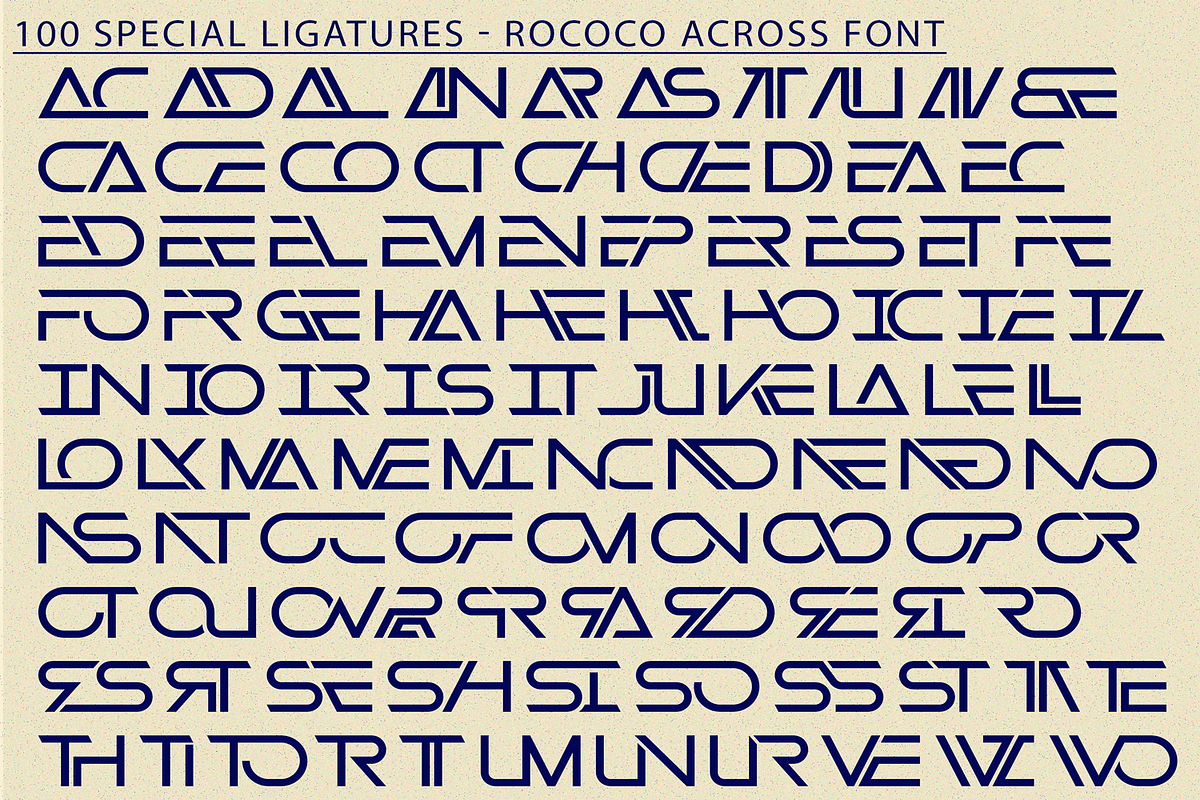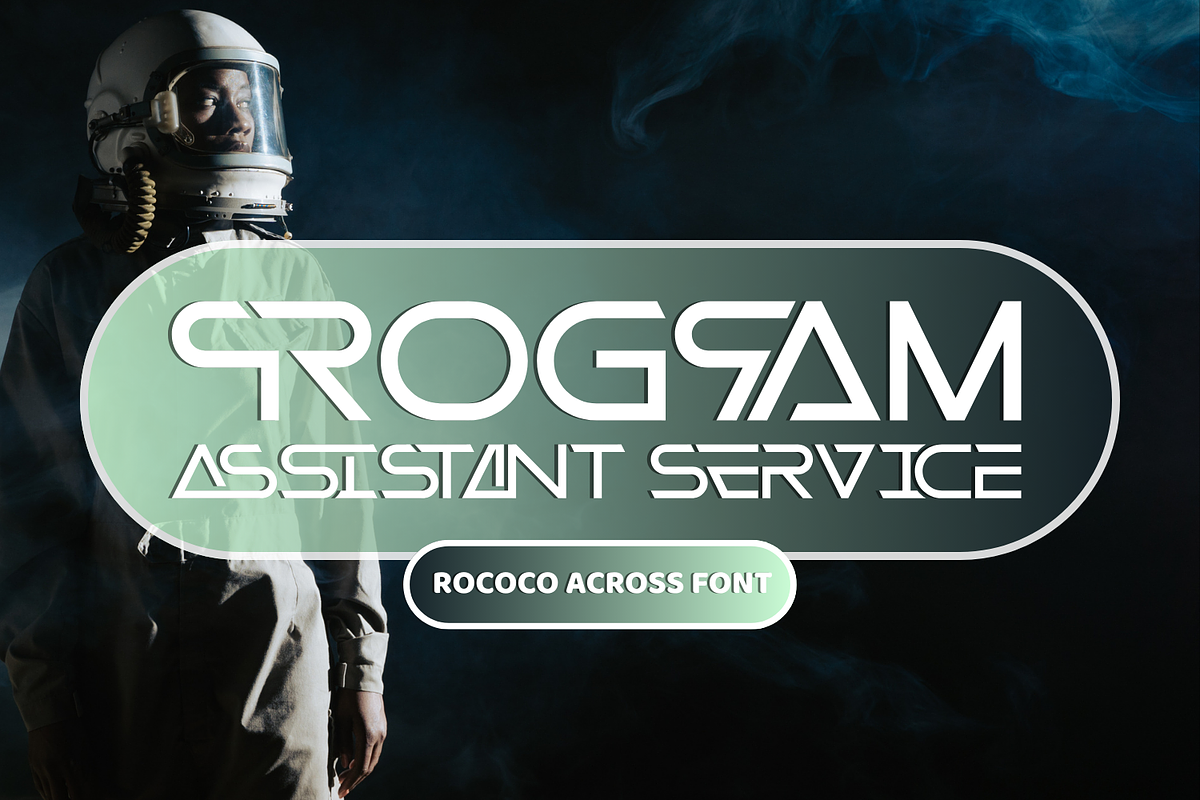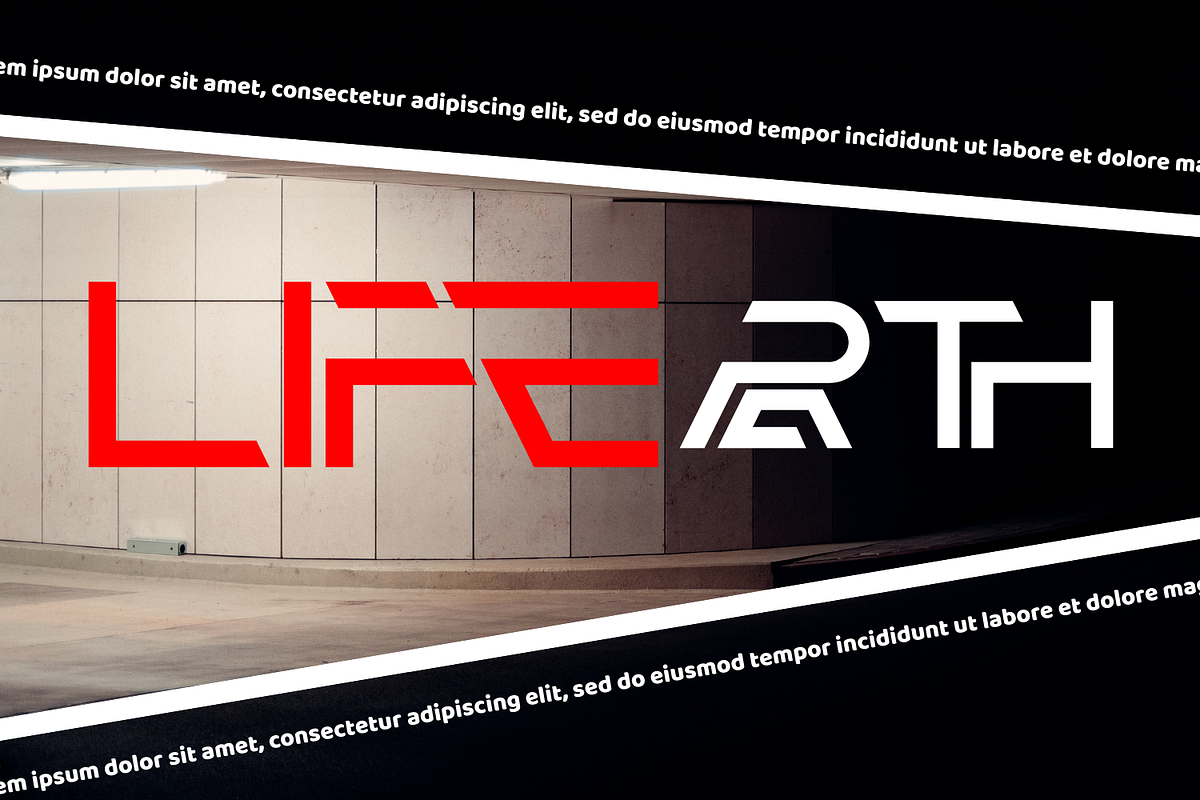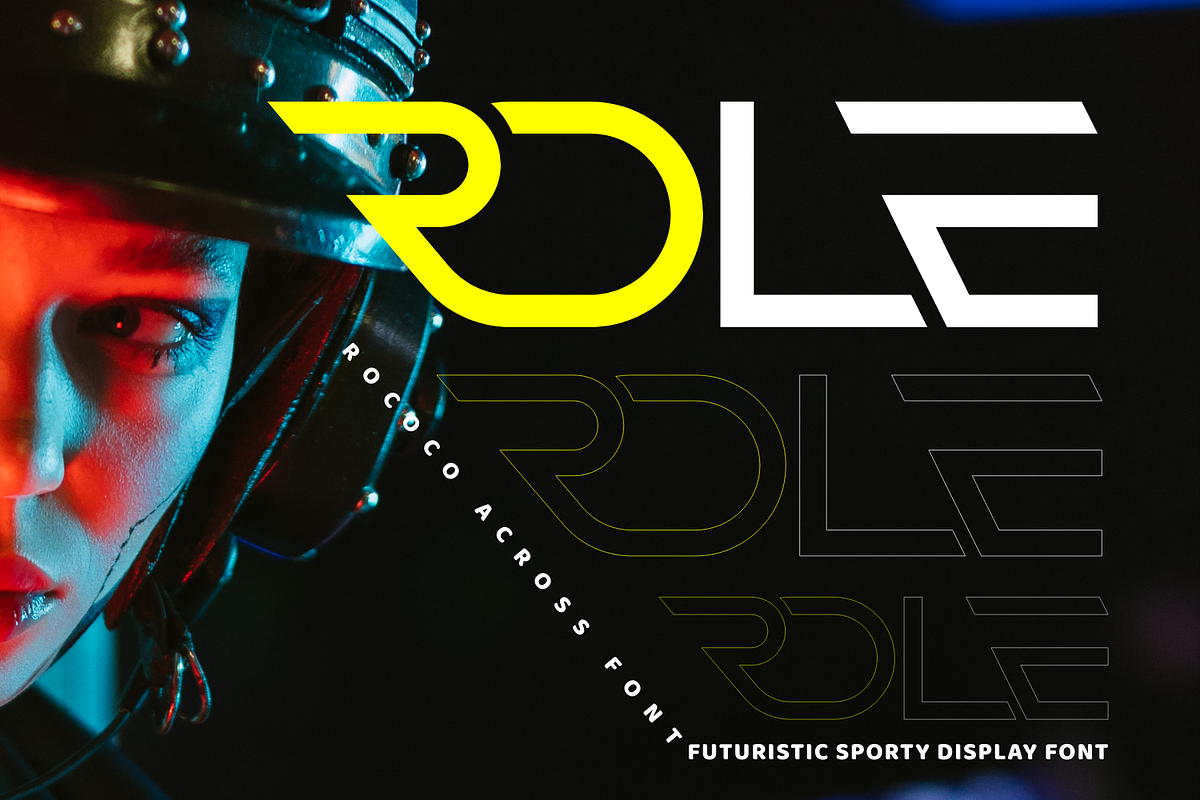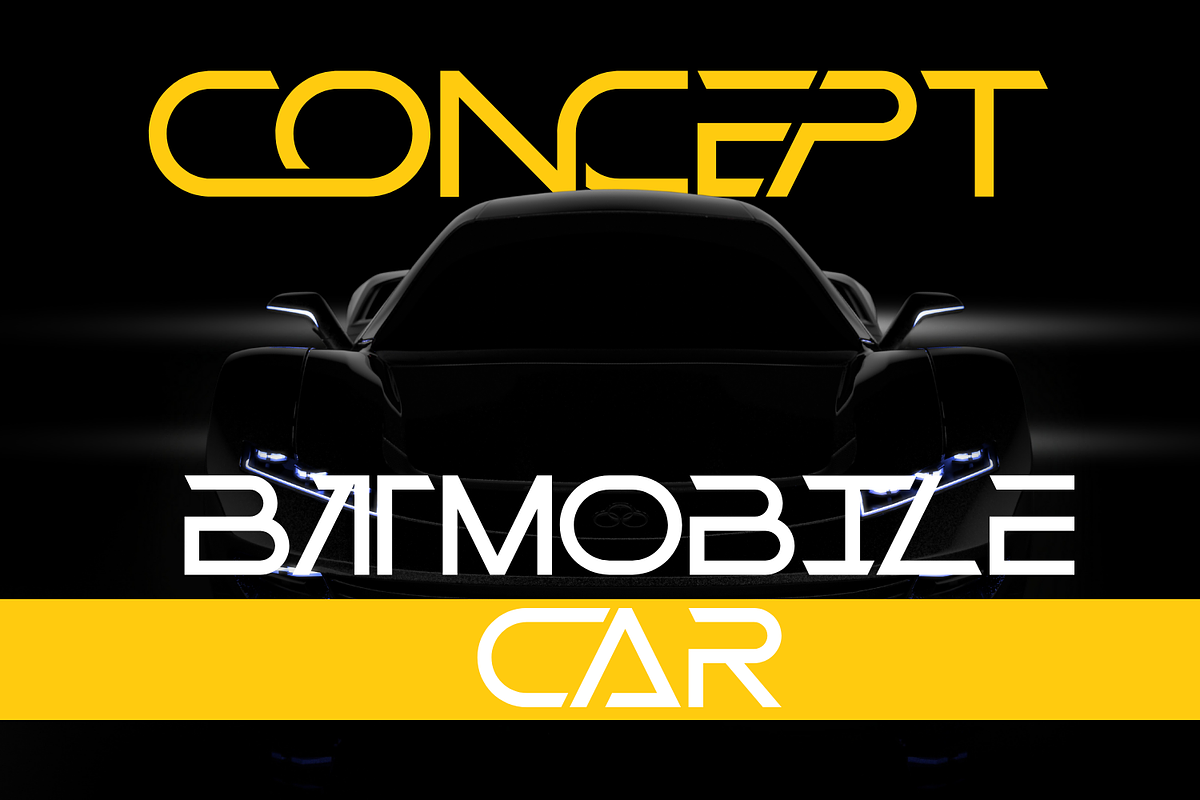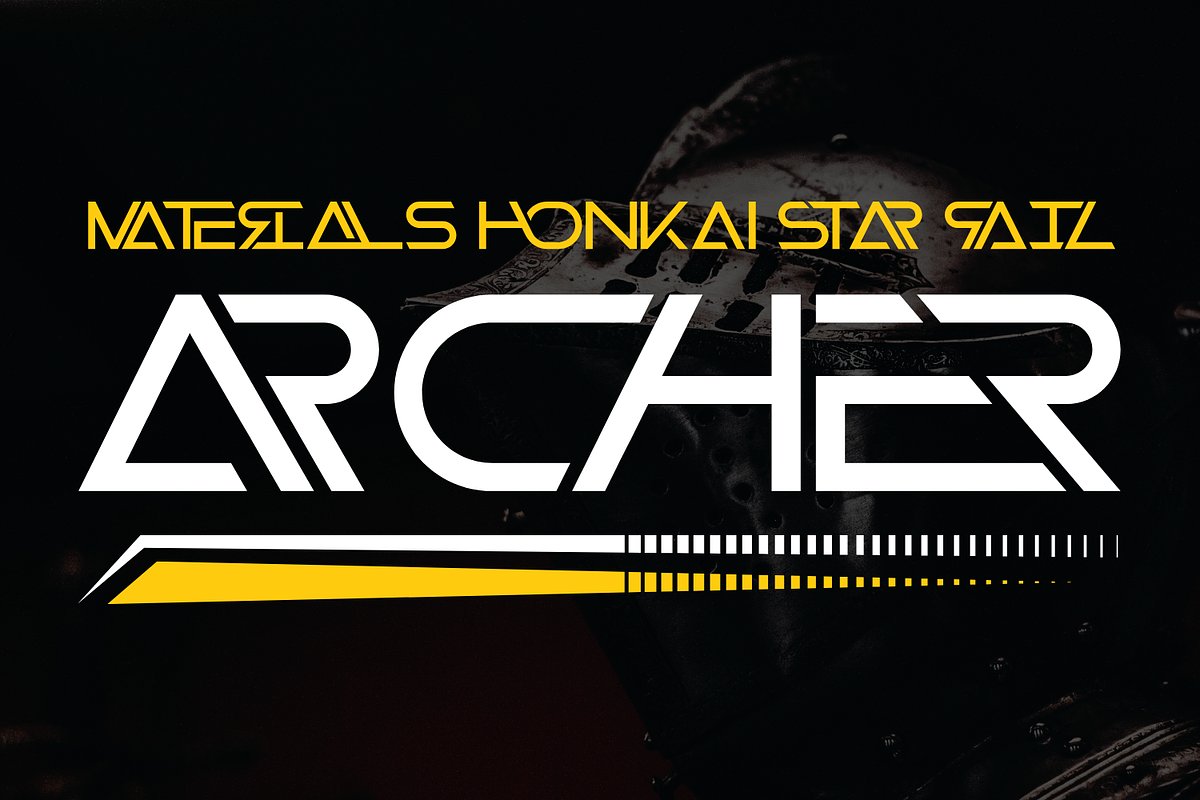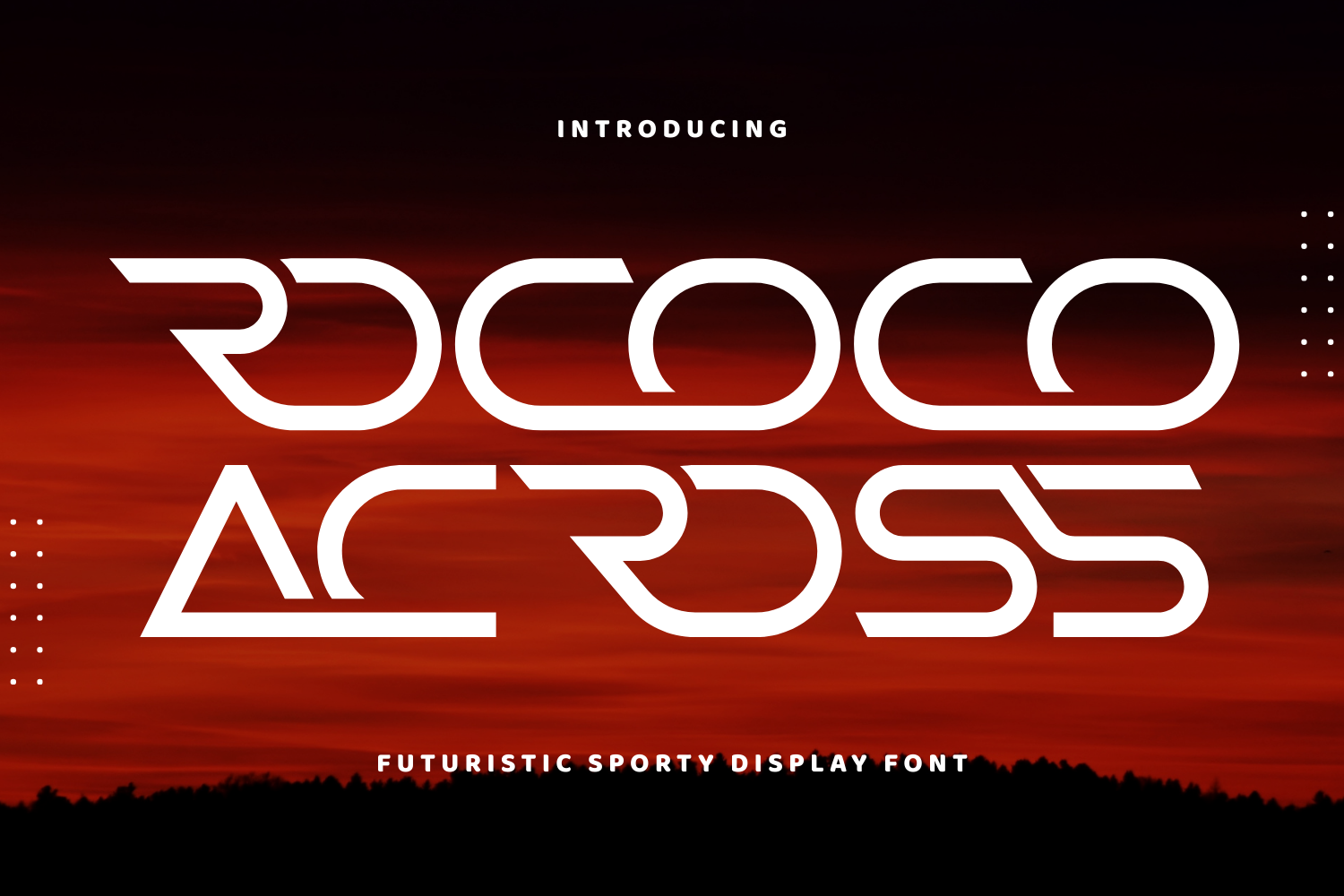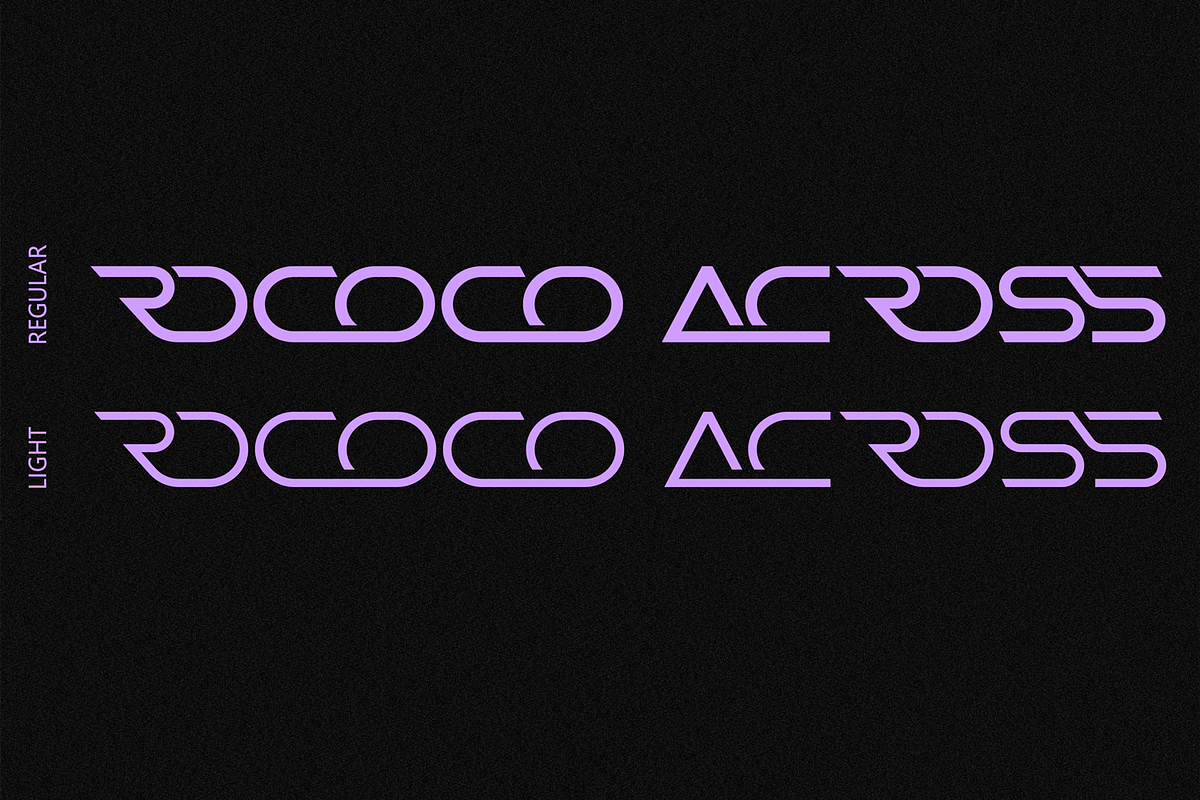
Rococo Across - Futuristic Font
Rococo Across - Futuristic Font - A Futuristic Techno Display Font, a sleek futuristic display font that embodies innovation and modern aesthetics. With its geometric forms, sharp edges, and streamlined curves, this typeface conveys a sense of speed, technology, and digital sophistication. Perfectly suited for sci-fi posters, gaming titles, technology branding, digital interfaces, album covers, and modern advertising, Rococo Across delivers a bold visual identity that stands out with futuristic elegance.
- Uppercase Letters
- ~100 Futuristic Ligatures
- Accented Characters for multilingual support
About 100 ligatures combined with Stylistic Alternates Font:
ac ad al an ar as at au av be ca ce ch co ct de di ea ec ed ee el em en ep er es et fe fo fr ge ha he hi ho ie ic il in io ir is it ju ke la le li ll lo ly ma me mi nc nd ne ng no nt ns oc of om on oo op or ot ou ow pa pr ra rd re ri ro rs rt se sh si so ss st ta te th ti to tr tt um un ur ve wi wo